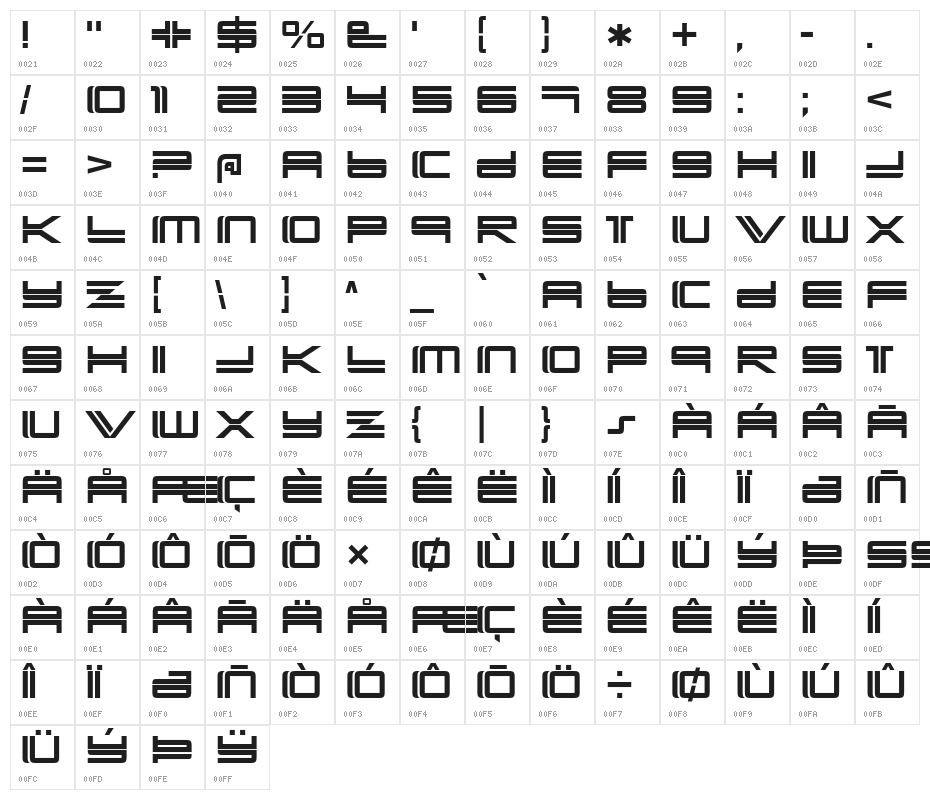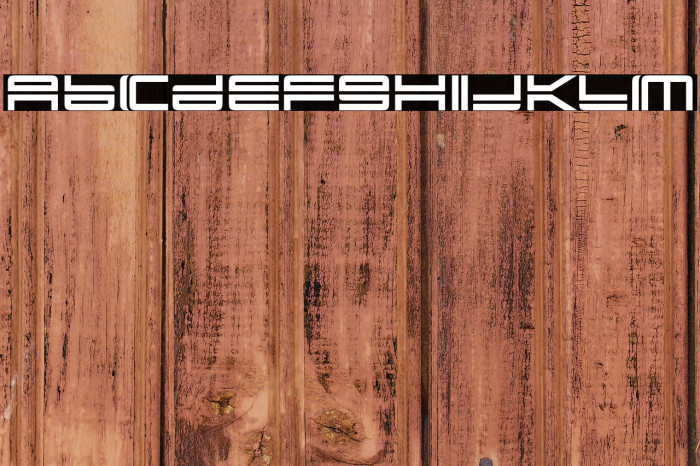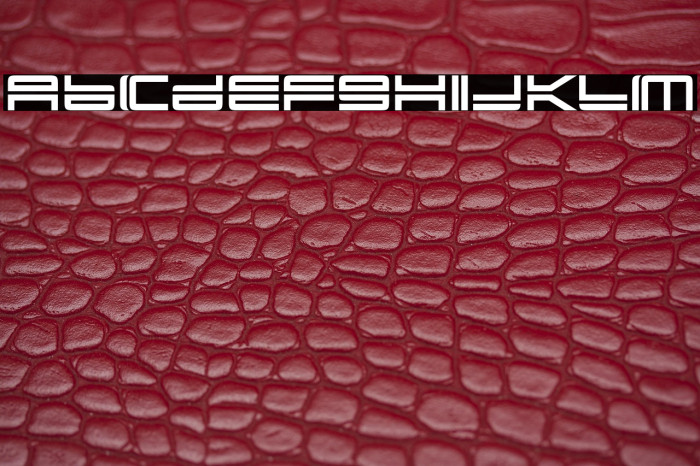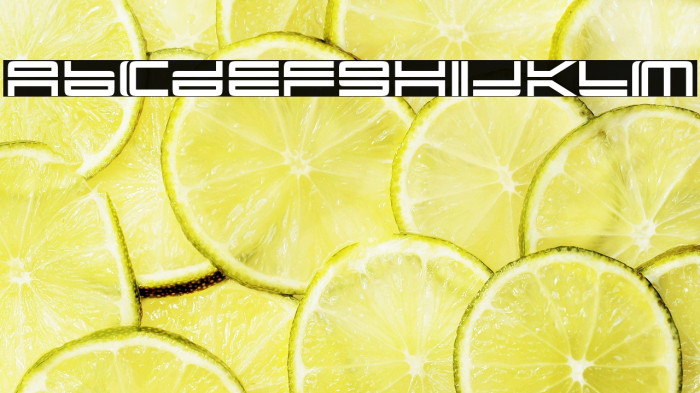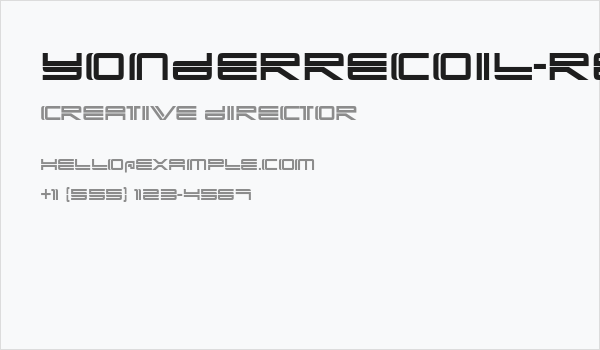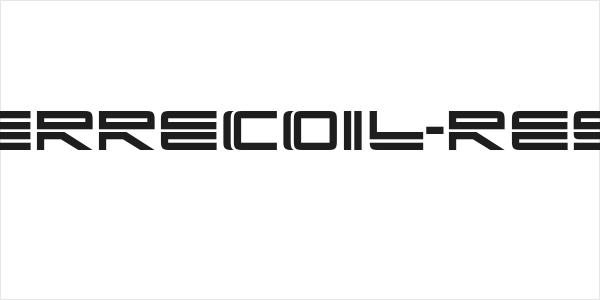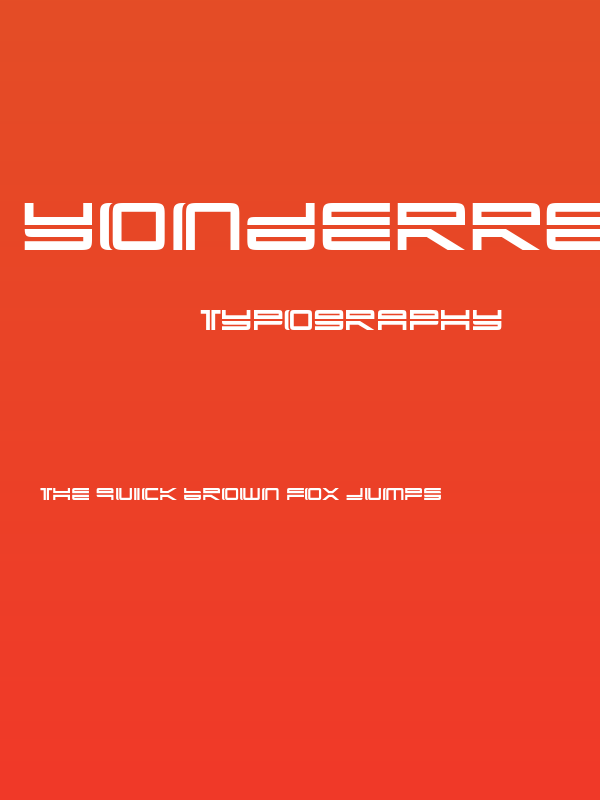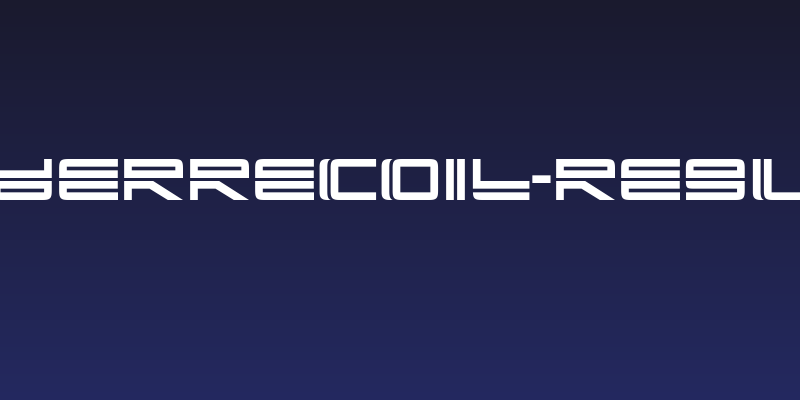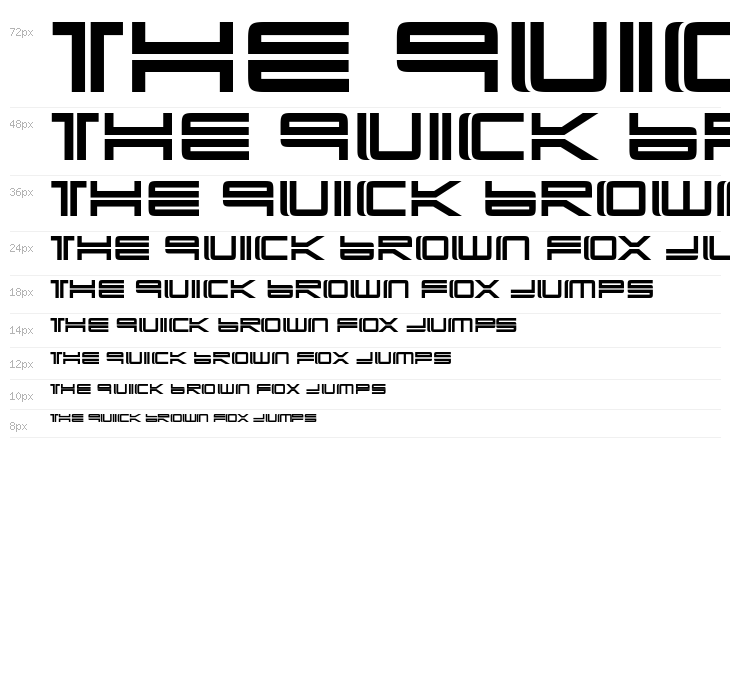
YonderRecoil-Regular Font
YonderRecoil-Regular Description
This font features a futuristic and geometric design, characterized by its bold, angular lines and unique cutouts within each character. The uppercase and lowercase letters maintain a consistent style, with a strong emphasis on horizontal and vertical strokes. The numerals and special characters are equally bold, ensuring a cohesive look across all elements. The font's distinct style makes it ideal for projects that require a modern and tech-savvy appearance, such as digital interfaces, video game titles, or sci-fi themed graphics. Its structured form and high readability make it suitable for both headlines and short text blocks.
| Proposed Projects | Ideal for digital interfaces, video game titles, sci-fi themed graphics, and tech branding. |